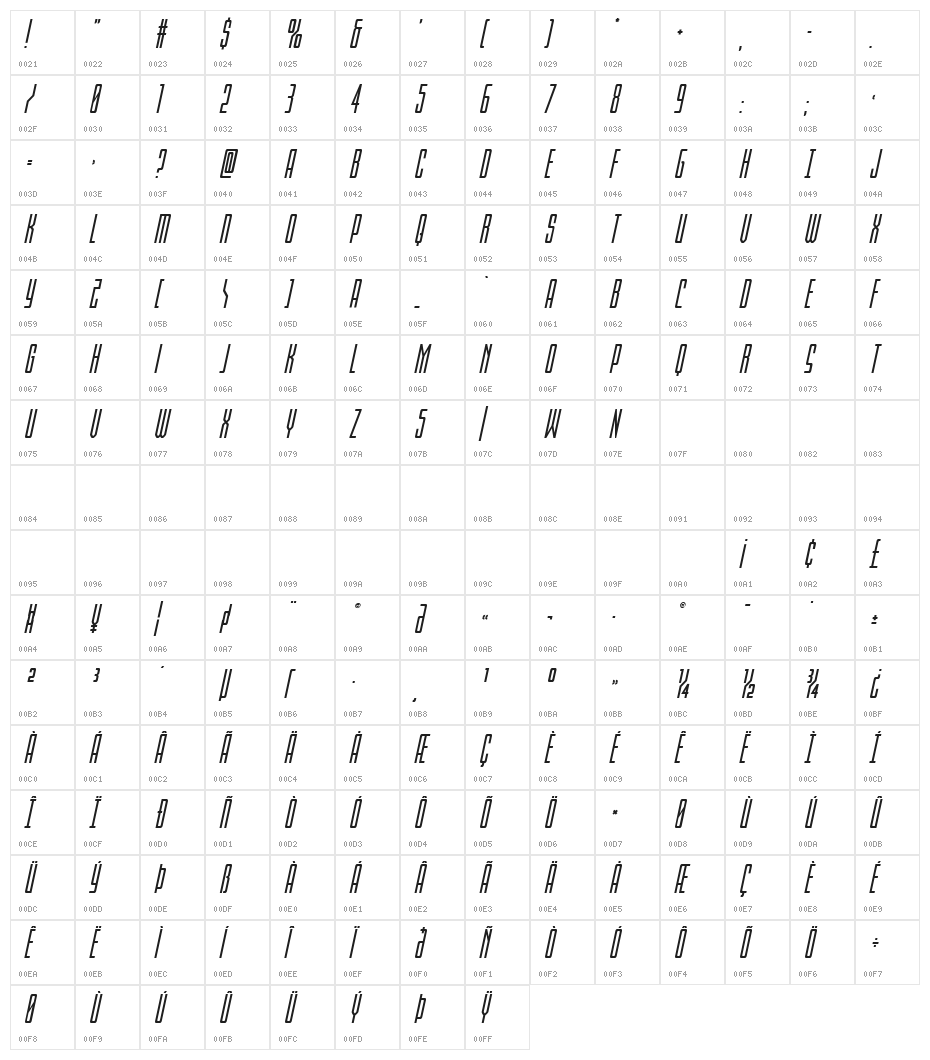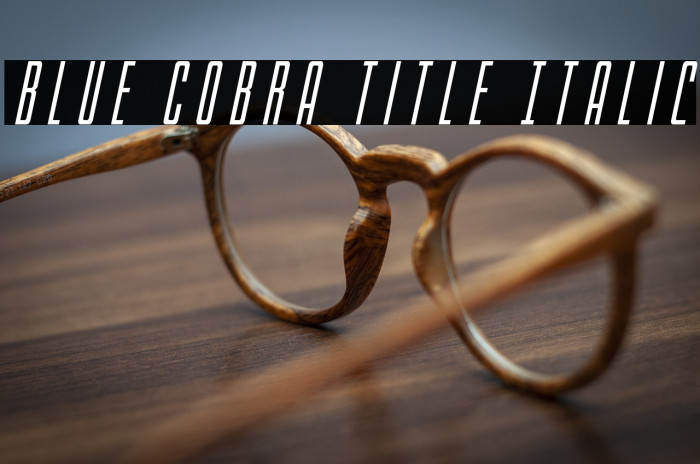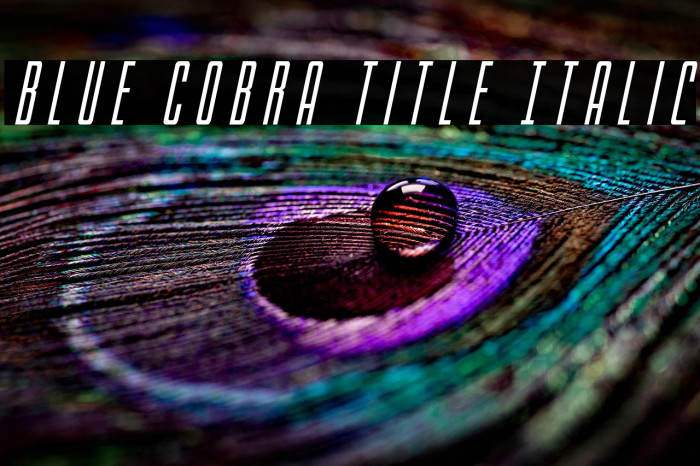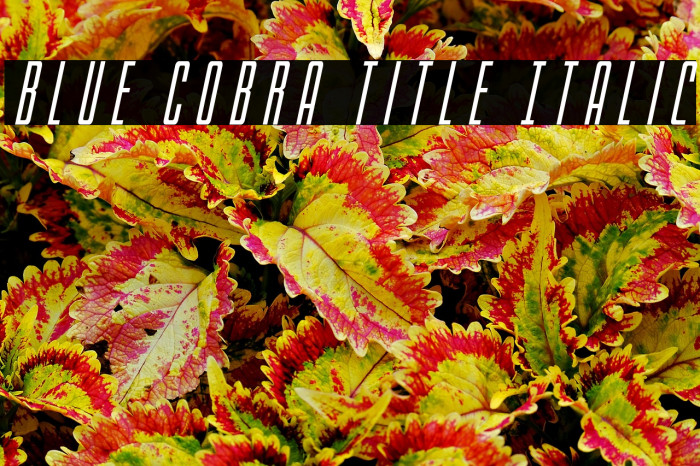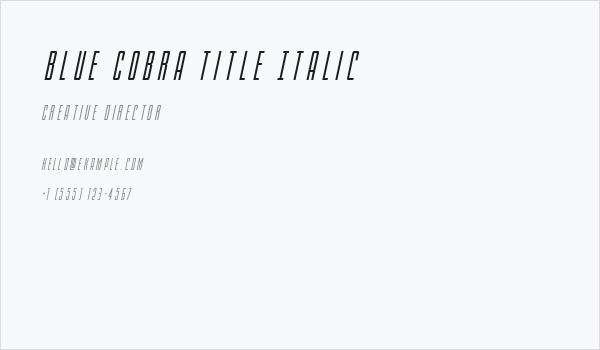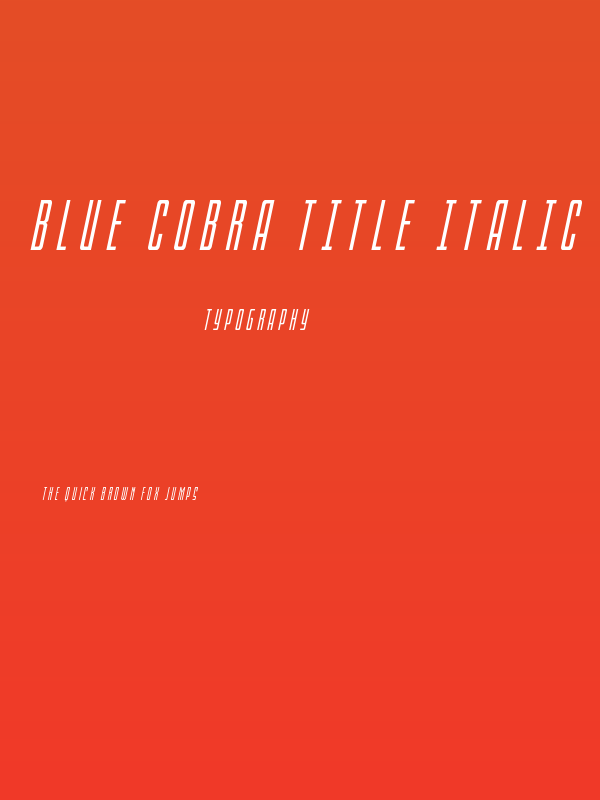
Blue Cobra Title Italic Font
Blue Cobra Title Italic Description
This font features a sleek, italicized design with elongated, narrow characters that convey a sense of speed and modernity. The uppercase and lowercase letters maintain a consistent slant, enhancing the dynamic appearance. The numerals and special characters are similarly styled, ensuring uniformity across all glyphs. The strokes are clean and sharp, with a medium contrast that adds to the font's legibility while maintaining its stylish flair. This typeface is well-suited for projects that require a contemporary and energetic look.
| Proposed Projects | Ideal for sports branding, automotive advertisements, modern posters, and dynamic logo designs. |